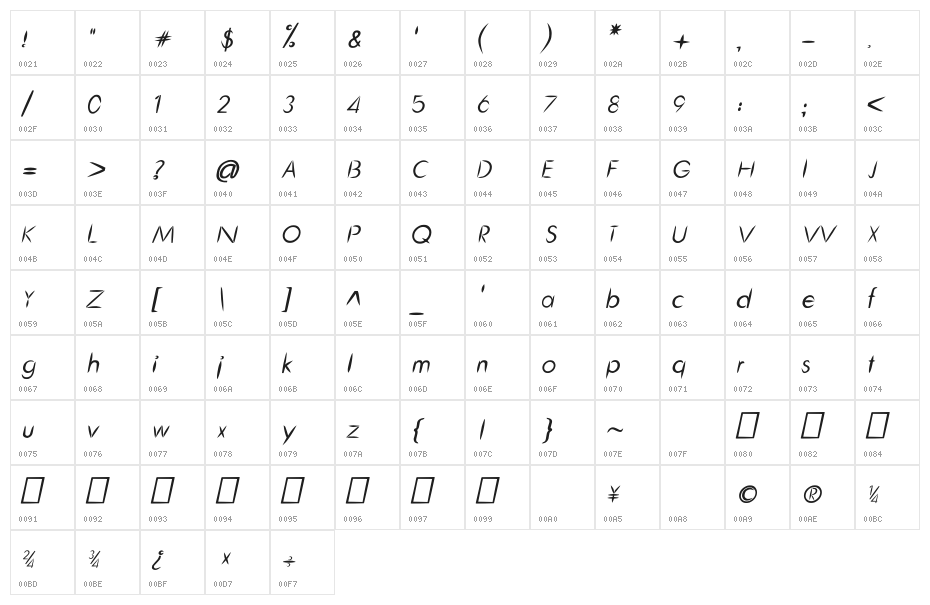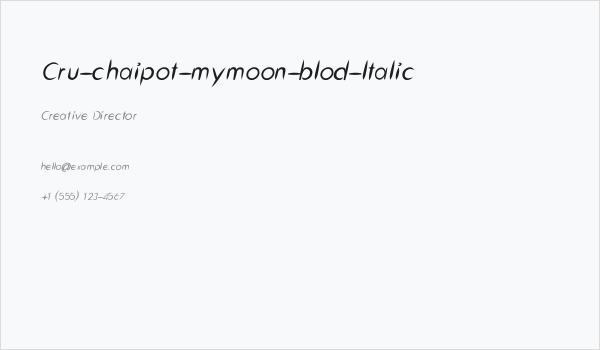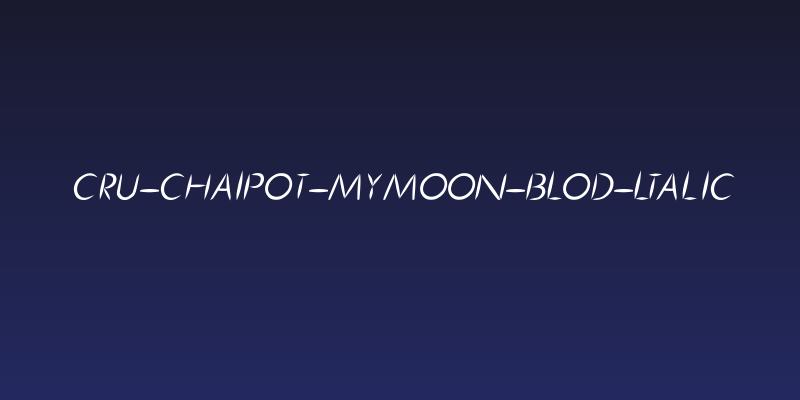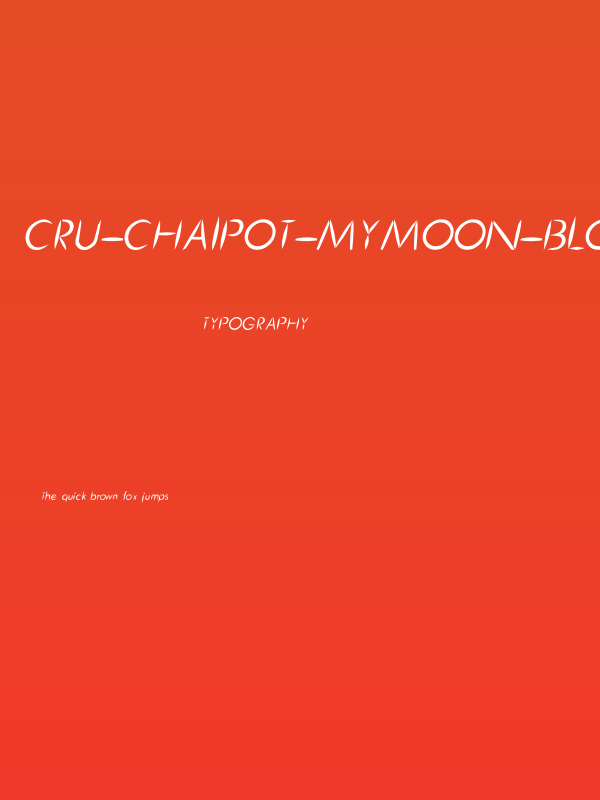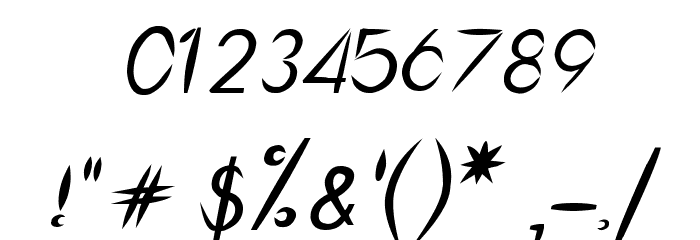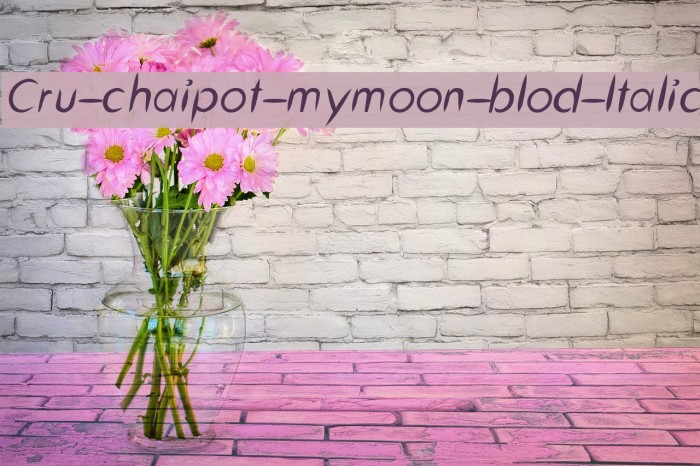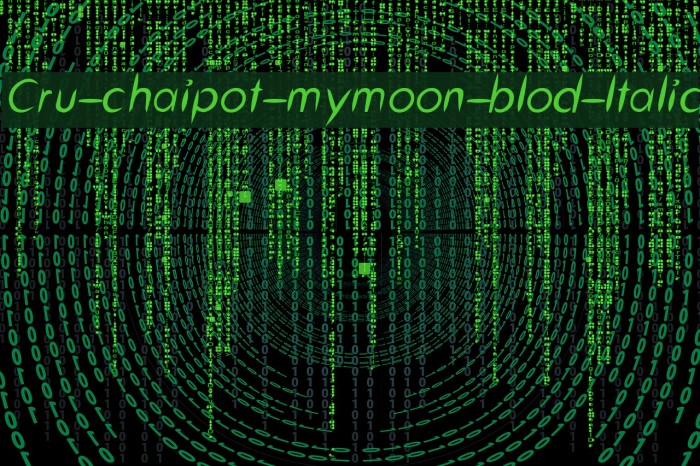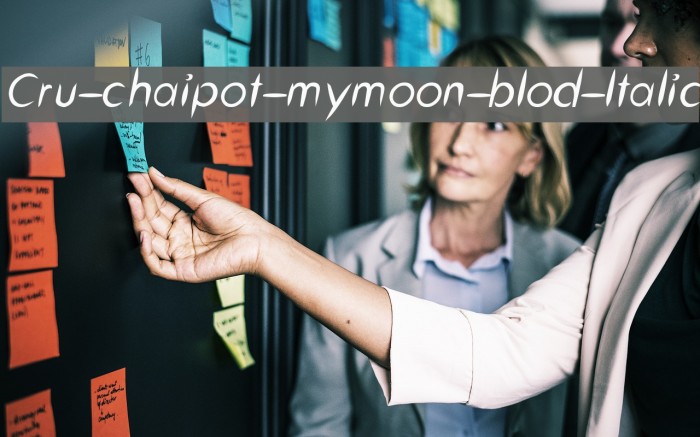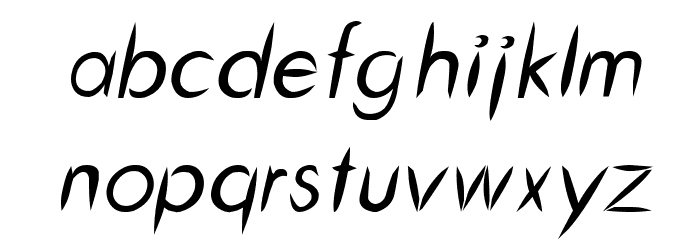
Cru-chaipot-mymoon-blod-ltalic Font
Cru-chaipot-mymoon-blod-ltalic Description
This font exhibits a dynamic and energetic style with sharp, angular strokes and a forward-leaning slant, giving it a sense of motion and urgency. The uppercase letters are bold and striking, while the lowercase letters maintain a consistent flow with slightly exaggerated curves. The numerals are distinct and maintain the same angular aesthetic, ensuring readability. Special characters are creatively designed, complementing the overall style. This font's unique characteristics make it stand out, suitable for projects that require a bold and modern touch.